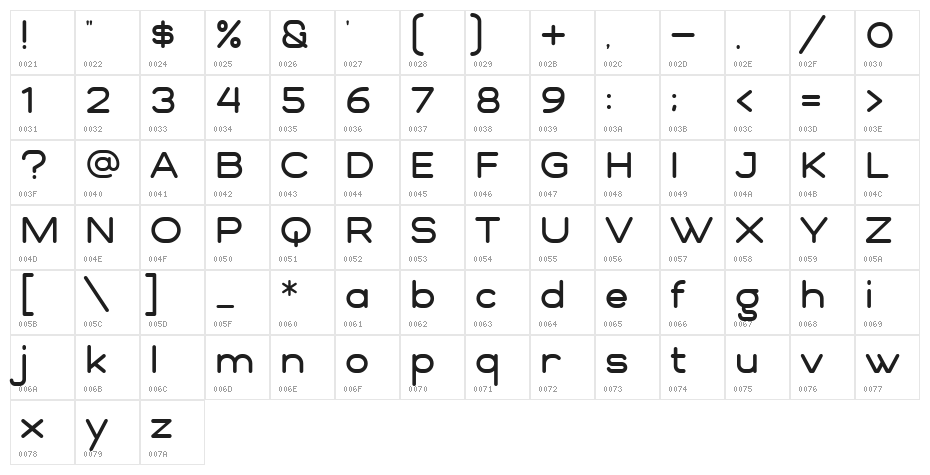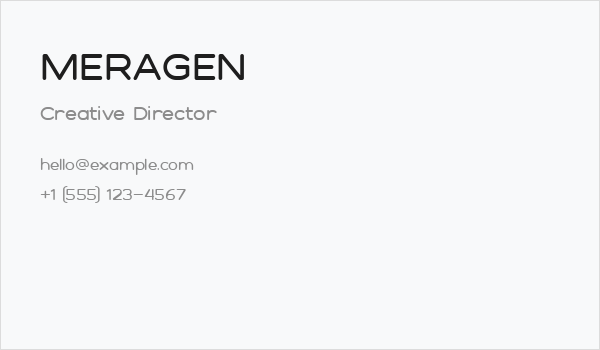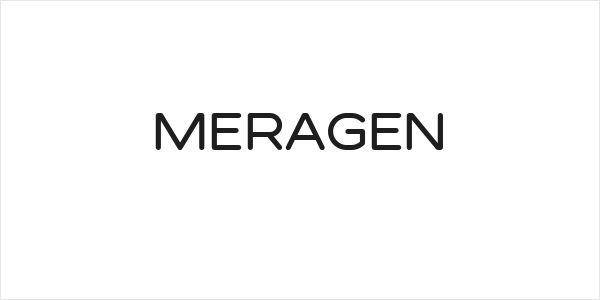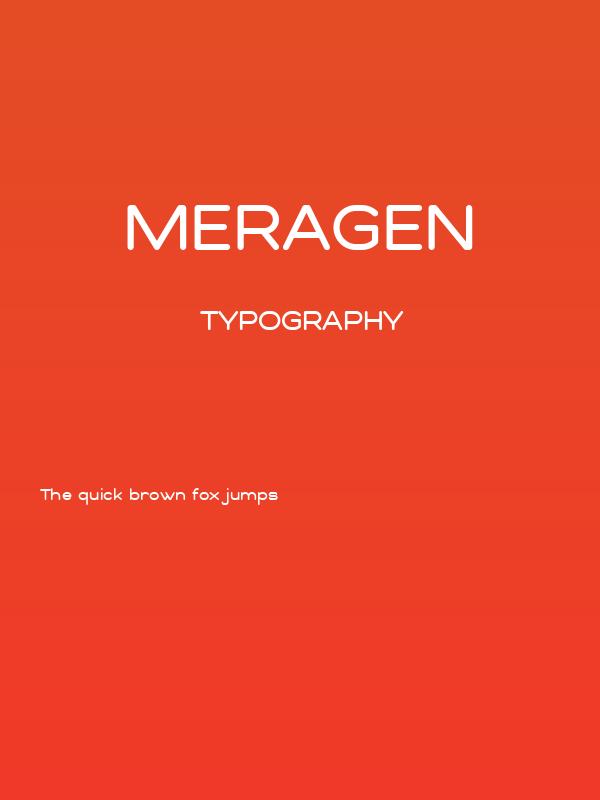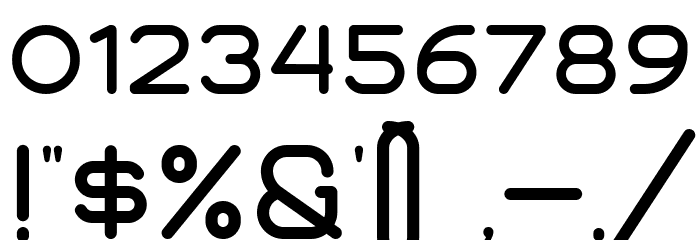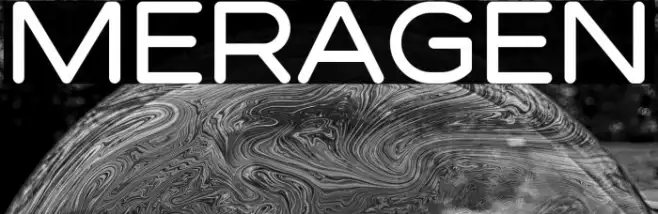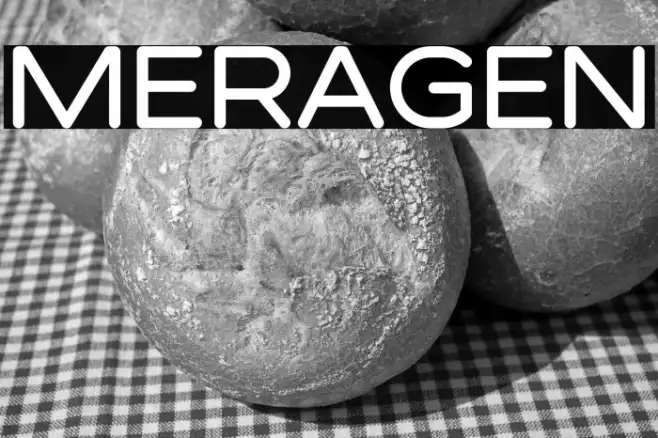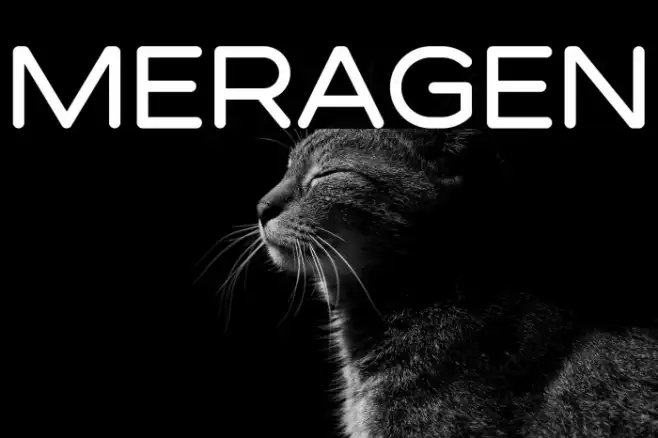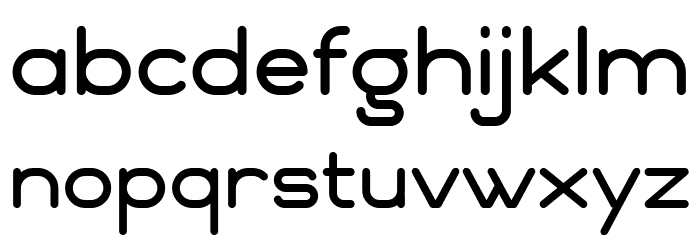
MERAGEN Font
MERAGEN Description
This font features a clean and modern sans-serif design with rounded edges, giving it a friendly and approachable appearance. The uniform stroke width and geometric shapes contribute to its contemporary style. The characters are well-balanced with a consistent height, making it highly legible. The numerals and special characters maintain the same rounded aesthetic, ensuring a cohesive look across all elements. This font is versatile, suitable for both digital and print media, and can be used in various design contexts.
| Proposed Projects | Ideal for branding, web design, user interfaces, and advertising materials. |